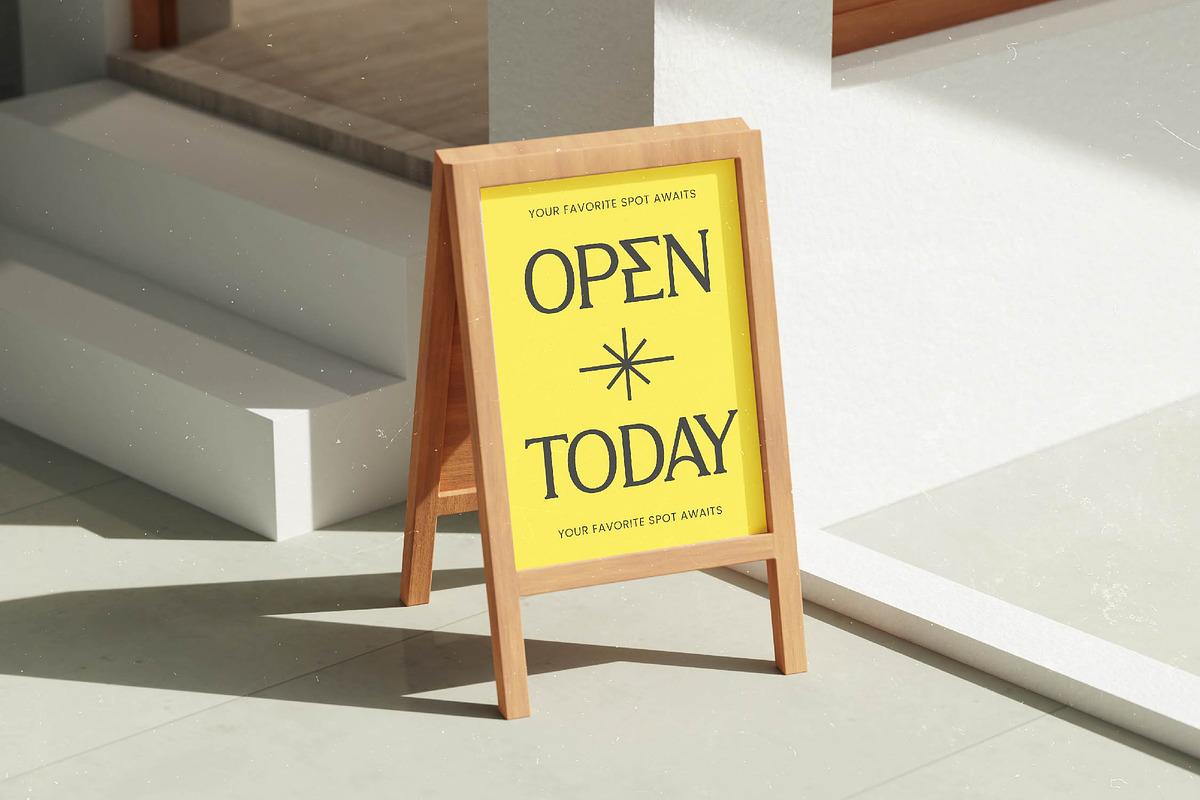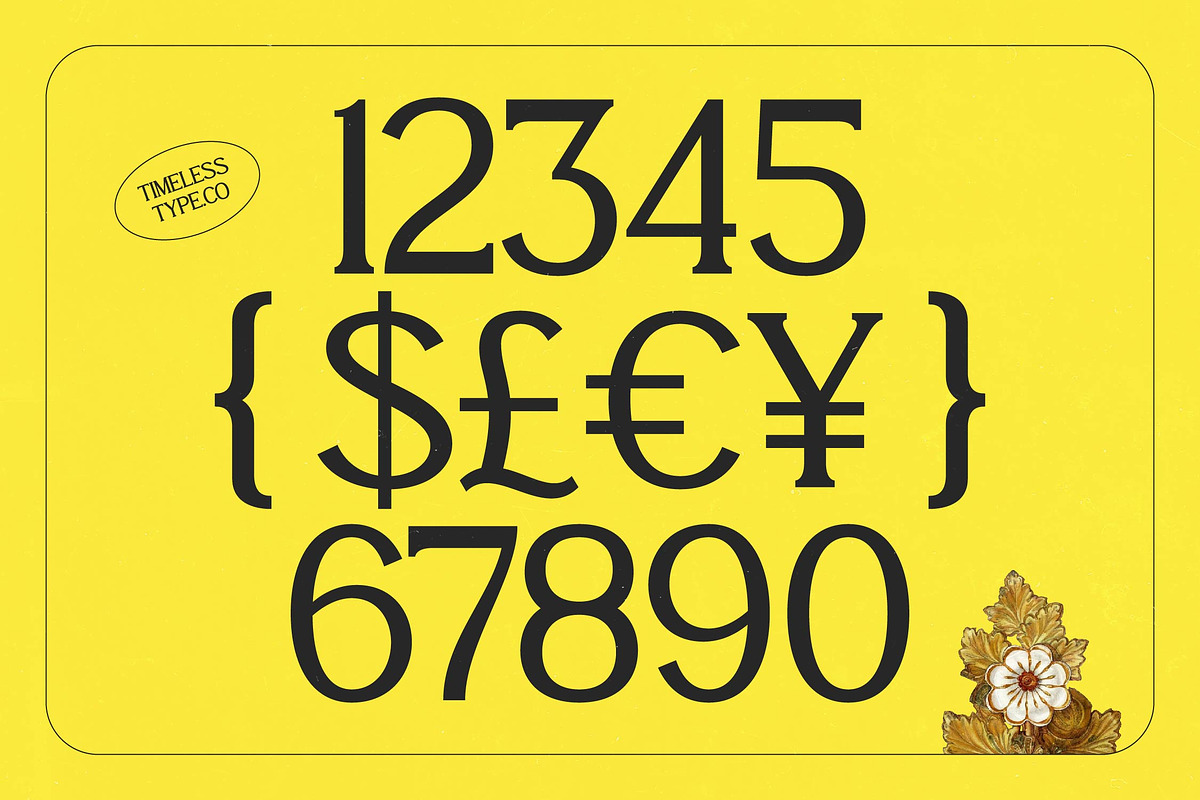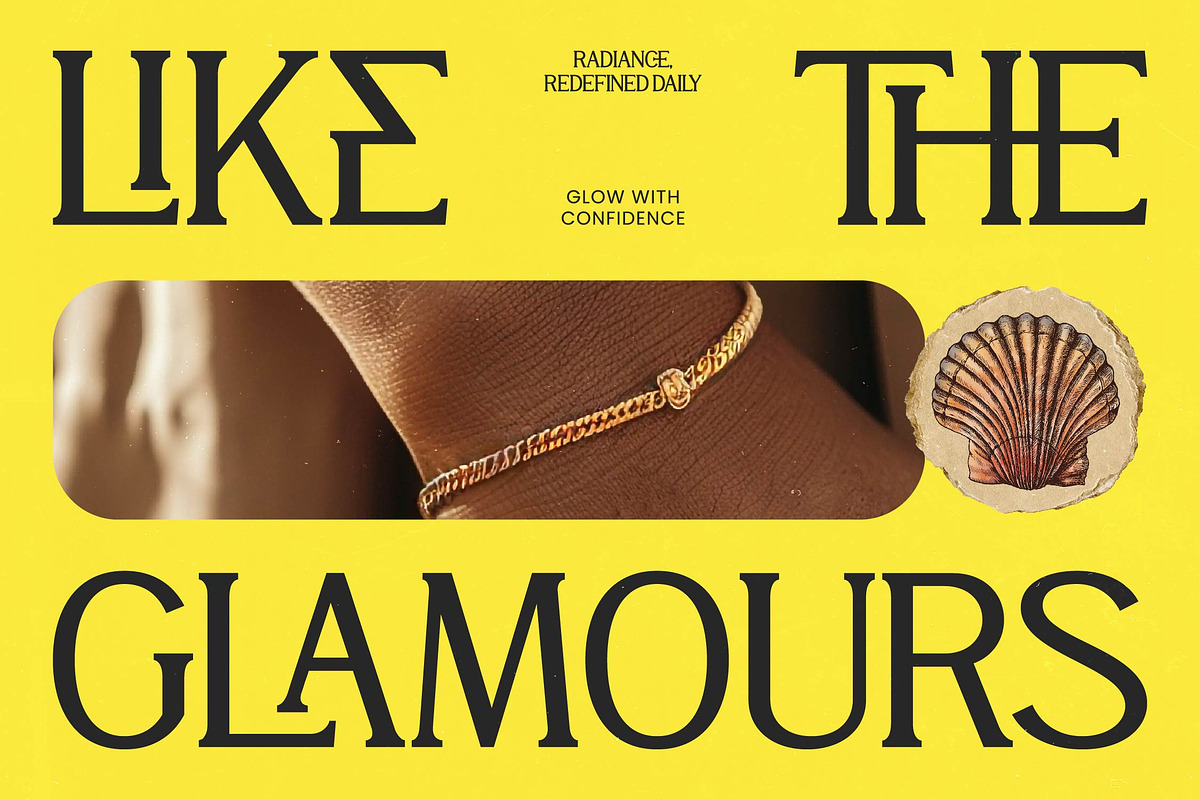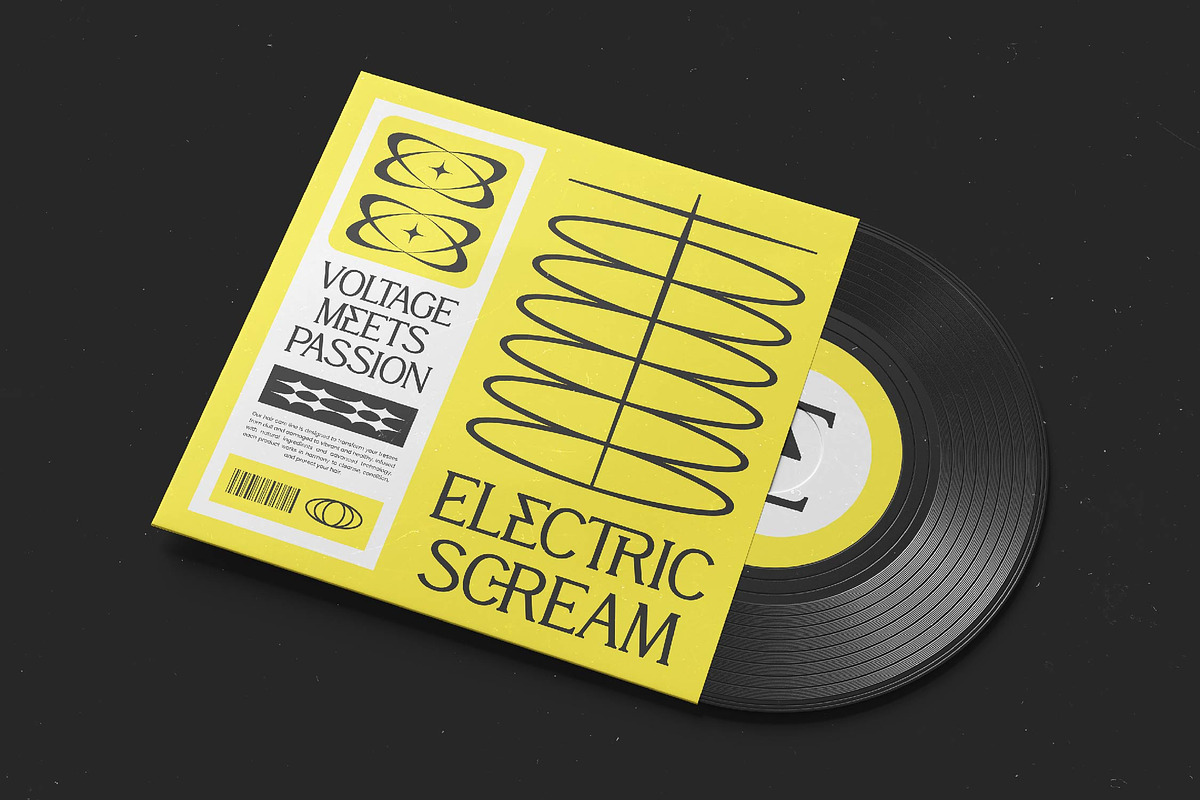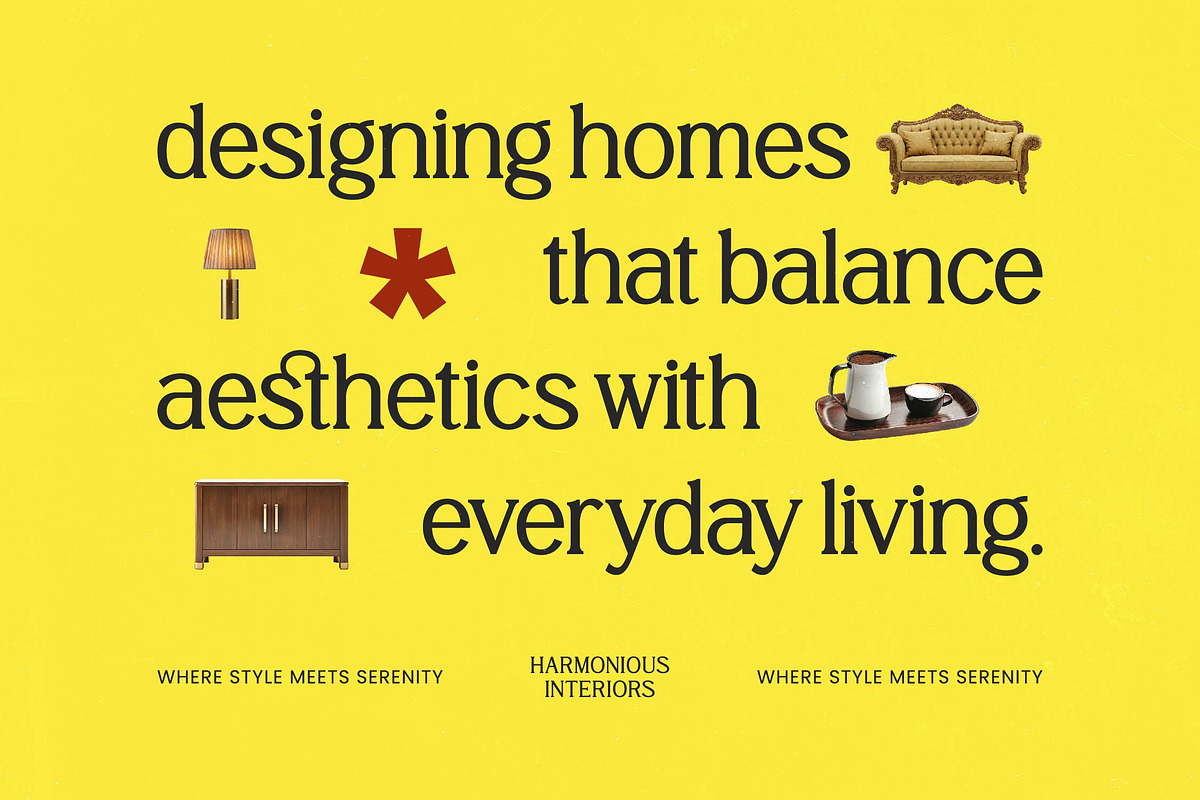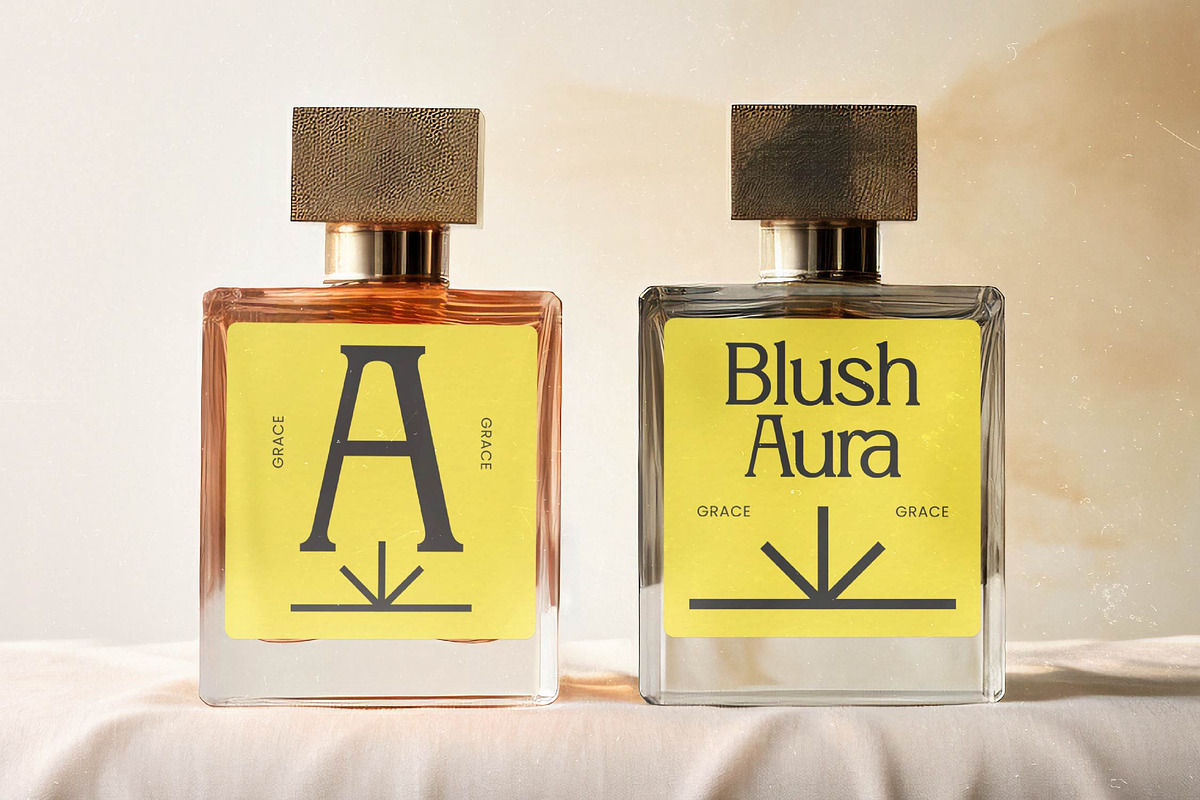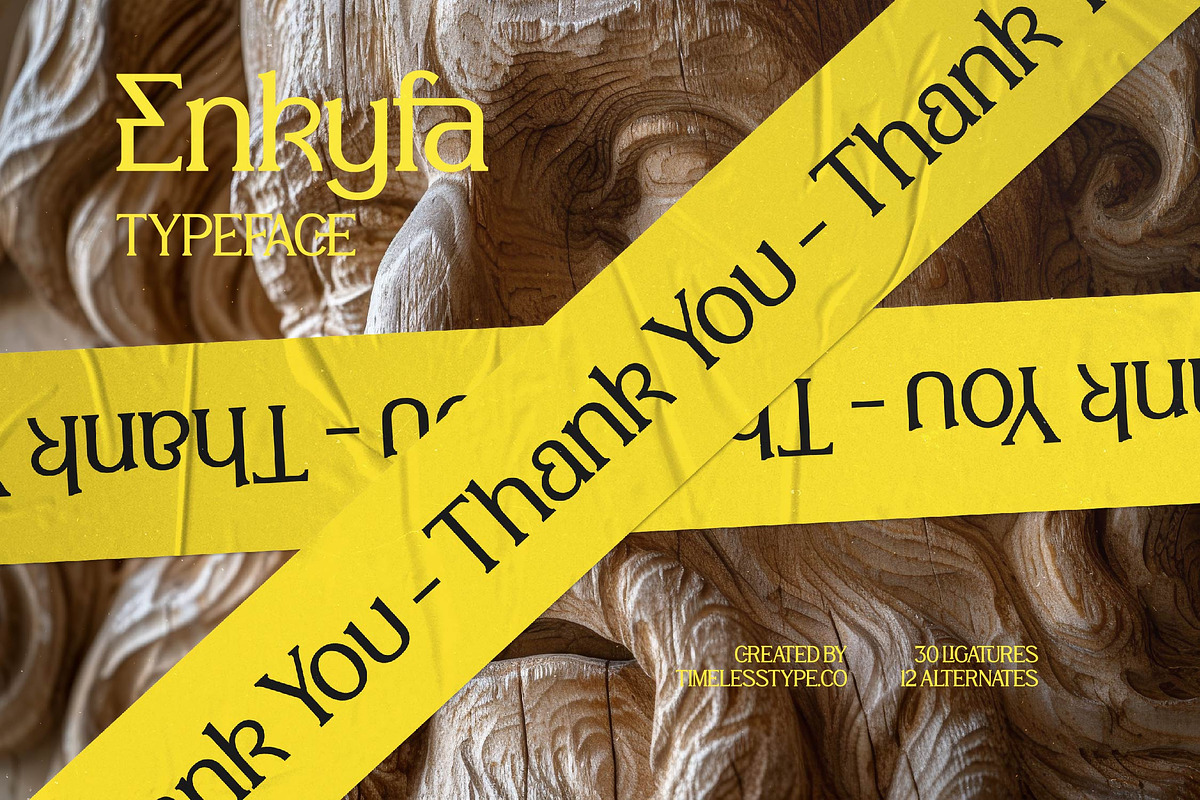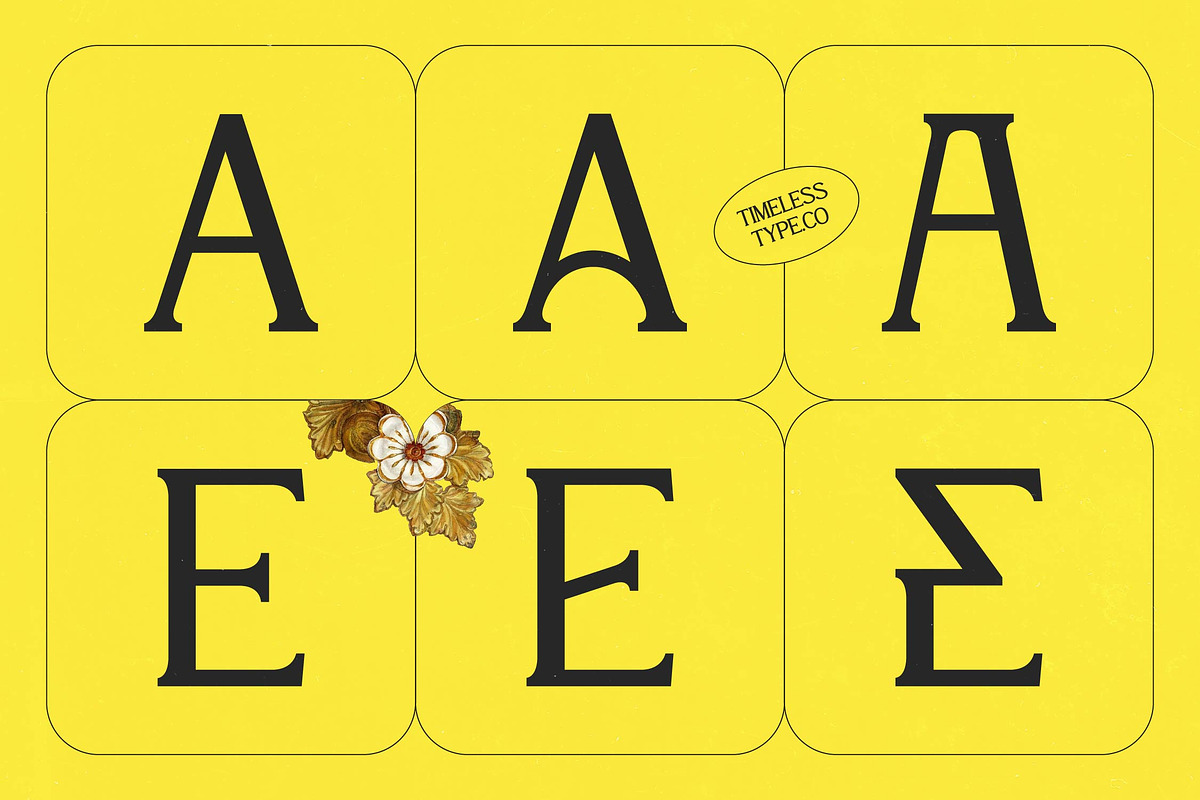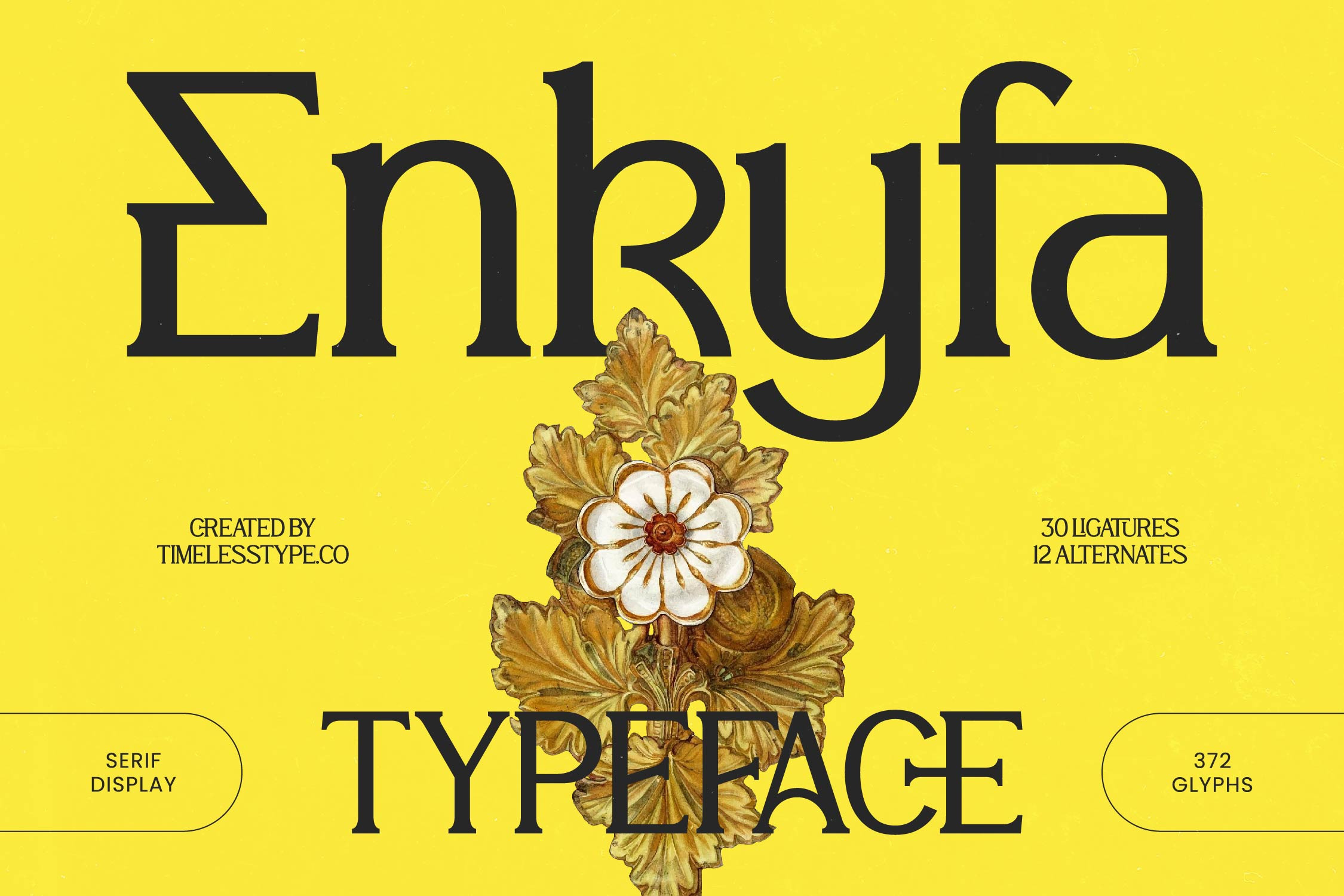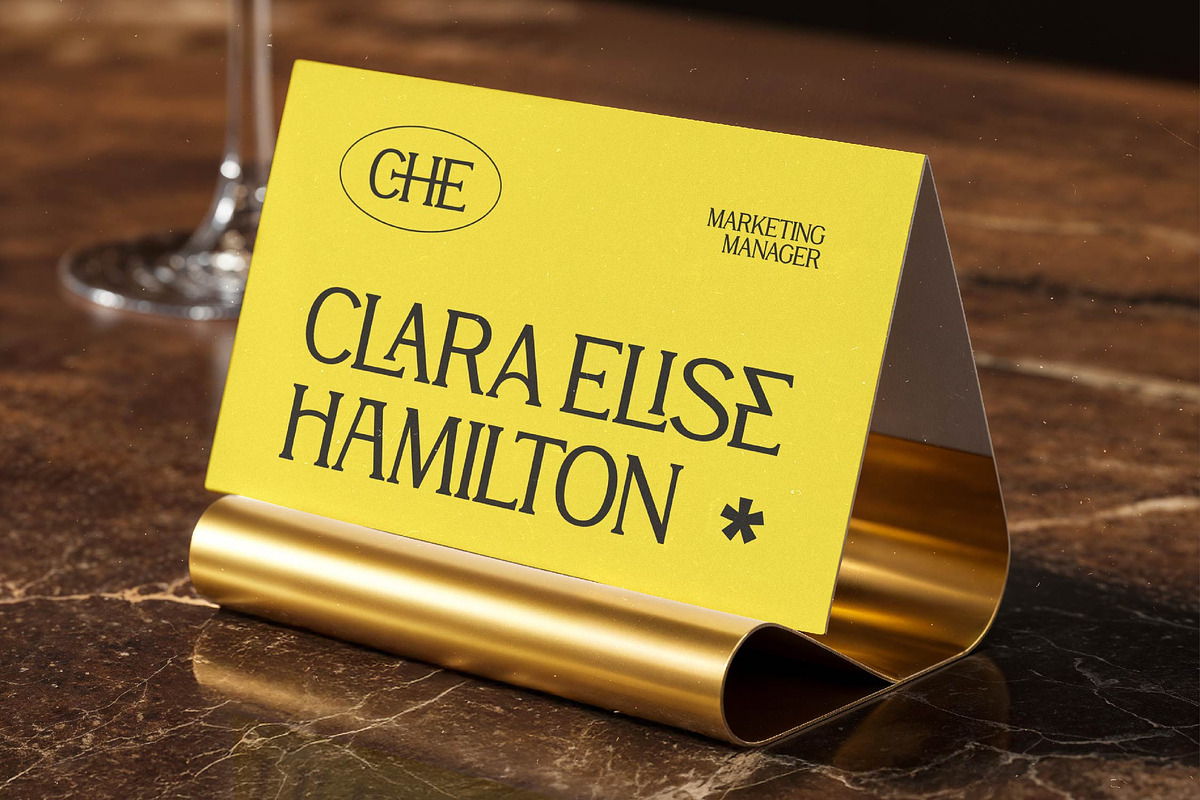
Enkyfa Serif Display Typeface
Enkyfa – Serif Display Typeface , Elevate your brand with timeless elegance. Enkyfa – Serif Display Typeface is a masterclass in modern serif design, blending classical proportions with avant-garde flair. This high-contrast typeface commands attention with its sharp serifs and refined letterforms, offering a visual language that is both authoritative and artistic. Designers will find Enkyfa – Serif Display Typeface an indispensable asset for creating striking headlines and memorable visual identities.
Designed for high-impact visual storytelling, this typeface is perfectly suited for luxury branding, high-end packaging, and editorial design. Whether utilized for magazine mastheads or premium logo design, Enkyfa – Serif Display Typeface ensures your message is delivered with unmatched clarity and artistic grace. Its collection of 30 ligatures and 12 alternates allows for bespoke typography, making it the ideal choice for projects requiring a couture aesthetic.
Reach a worldwide audience with ease using a tool built for the modern era. With its extensive multilingual support, Enkyfa – Serif Display Typeface adapts seamlessly across global markets, making it incredibly versatile for international projects. Featuring a robust set of 372 glyphs, this serif display typeface supports various Latin-based languages, ensuring that your brand voice remains consistent. The precision of Enkyfa – Serif Display Typeface ensures typographic excellence in both digital and print environments.
Numerals
Punctuations (OpenType Standard)
Accents (Multilingual Characters)
Ligatures and Alternative Style Stylistic Set